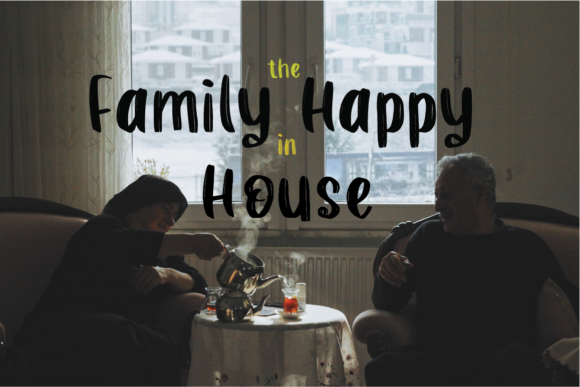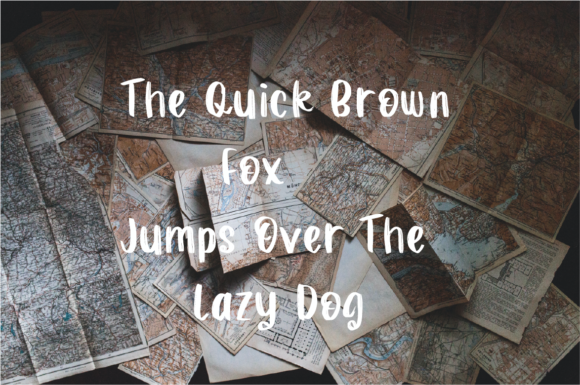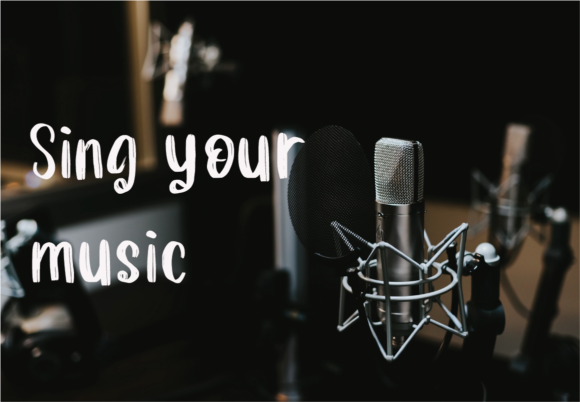
Introduction to Singway Font
Have you ever stared at a blank canvas, waiting for inspiration to strike, only to find yourself scribbling out rough ideas in a desperate attempt to bring your creative project to life? This is where the perfect design resource can make all the difference – and for many designers, that resource is the Singway Font.
This cool and casual handwritten font is the perfect addition to any design, offering a brushed, trendy touch that elevates your work to the next level. With the Singway Font, you have the freedom to experiment and push the boundaries of your creativity, all while maintaining a high quality and polished look.
Key Features of Singway Font
- High-quality, vector-based font design, ideal for use in creative projects
- Transparent background, allowing for easy layering and customization in design projects
- Available in multiple sizes, from 12pt to 72pt, making it suitable for various design applications
- Resolution-independent design, ensuring crisp and clear rendering at any resolution
- Perfect for use in digital design, print materials, and web design projects as a design resource
- Comes with a clear and legible character set, ideal for use in body text and headings
Honest Review: Singway Font
I recently stumbled upon the Singway Font while searching for a high-quality, free design resource for my current creative project. After giving it a spin, I must say it’s a solid addition to any designer’s toolkit.
- Unique aesthetic: The Singway Font boasts a distinct style that sets it apart from more common sans-serif fonts.
- High-quality glyphs: The font’s characters are well-designed and visually appealing, making it perfect for titles and headings.
- Transparent background: This feature is particularly useful when working with images or graphics that require a seamless integration.
- Limited character set: The font only includes a basic set of characters, which may not be sufficient for more complex projects.
- No bold or italic variations: While the font’s style is great for titles, it lacks the versatility of bold or italic versions.
Overall, I’m impressed with the Singway Font’s quality and unique style. While it may have some limitations, it’s definitely a useful addition to any designer’s arsenal. If you’re looking for a high-quality, free font for your creative project, the Singway Font is definitely worth checking out.
Singway Font is ideal for various design projects, including:
Alternatives to Singway Font
The Great Vibes Font is a high-quality script font perfect for creative projects requiring a touch of elegance. It’s ideal for use in titles, quotes, and other design elements where a beautiful, handwritten style is desired. Great Vibes Font offers a transparent background, making it easy to place over any image or design. It’s a great alternative to Singway Font for designers looking for a more sophisticated and refined look.
The Pacifico Font is a modern script font that’s perfect for designers working on a creative project. It’s highly versatile and can be used in a variety of contexts, from titles and headings to body text and logos. Pacifico Font features a clean and elegant design, making it a great alternative to Singway Font for designers looking for a more streamlined look.
The Alex Brush Font is a beautiful script font that’s perfect for designers working on a design project that requires a touch of whimsy. It’s ideal for use in titles, quotes, and other design elements where a playful, handwritten style is desired. Alex Brush Font offers a transparent background, making it easy to place over any image or design. It’s a great alternative to Singway Font for designers looking for a more playful and creative look.